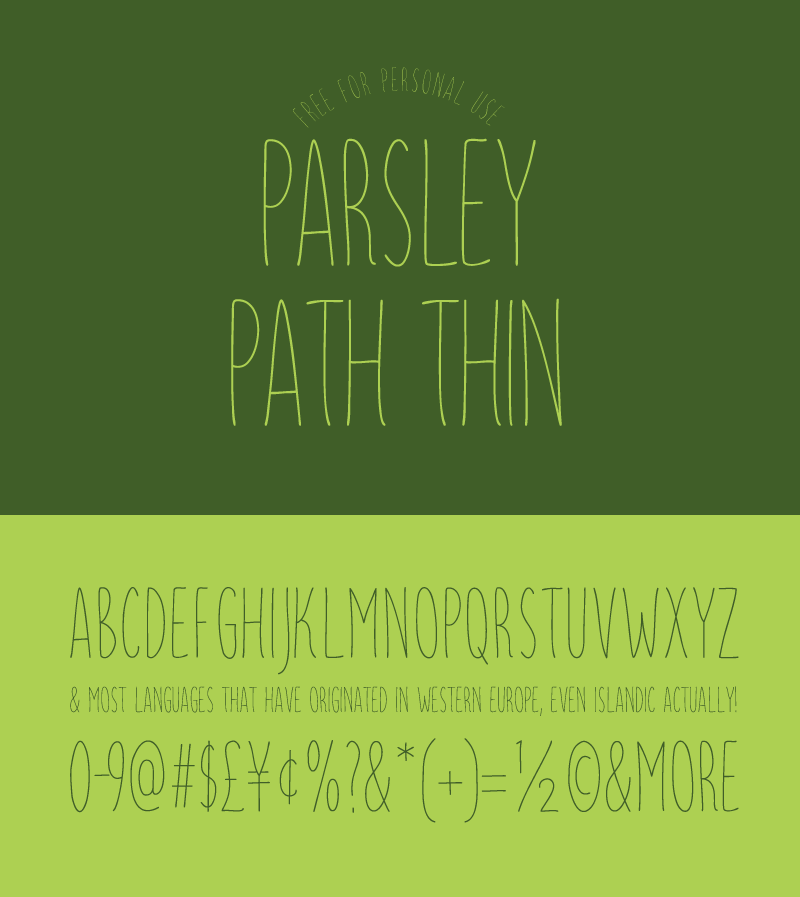
Parsely Path is a nice condensed handwritten typeface for logos, invitations, menus or anything you want. The font supports at least english, french, spanish, german, portuguese, swedish, danish, finish and even islandic. Please donate at least 5 USD/EUR if you will use the font commercially (for a small company or similar that makes money) or 100 USD/EUR if you use it for a Fortune 500 company. Feel free to contact me for any questions regarding this font! |